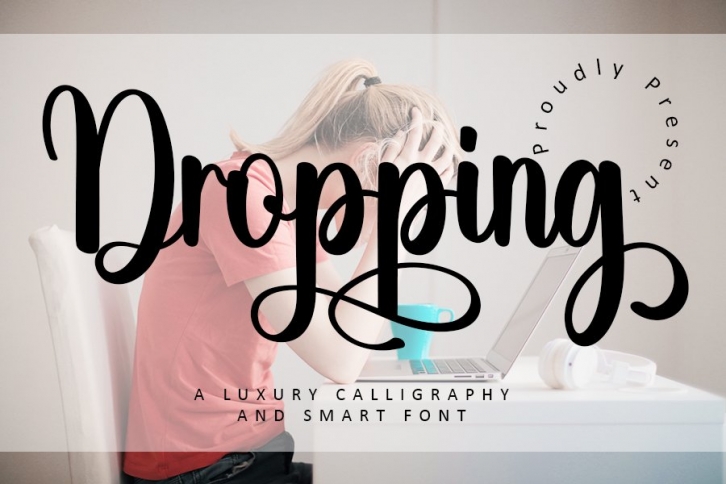
Dropping is a trendy and unique font with an authentic style. It was designed by InermediaSTUDIO and it's a great choice for creative people who need such a font. It was released on November 14, 2021 and the file size is 19.72 MB. Dropping will add an organic vibe to any design idea!